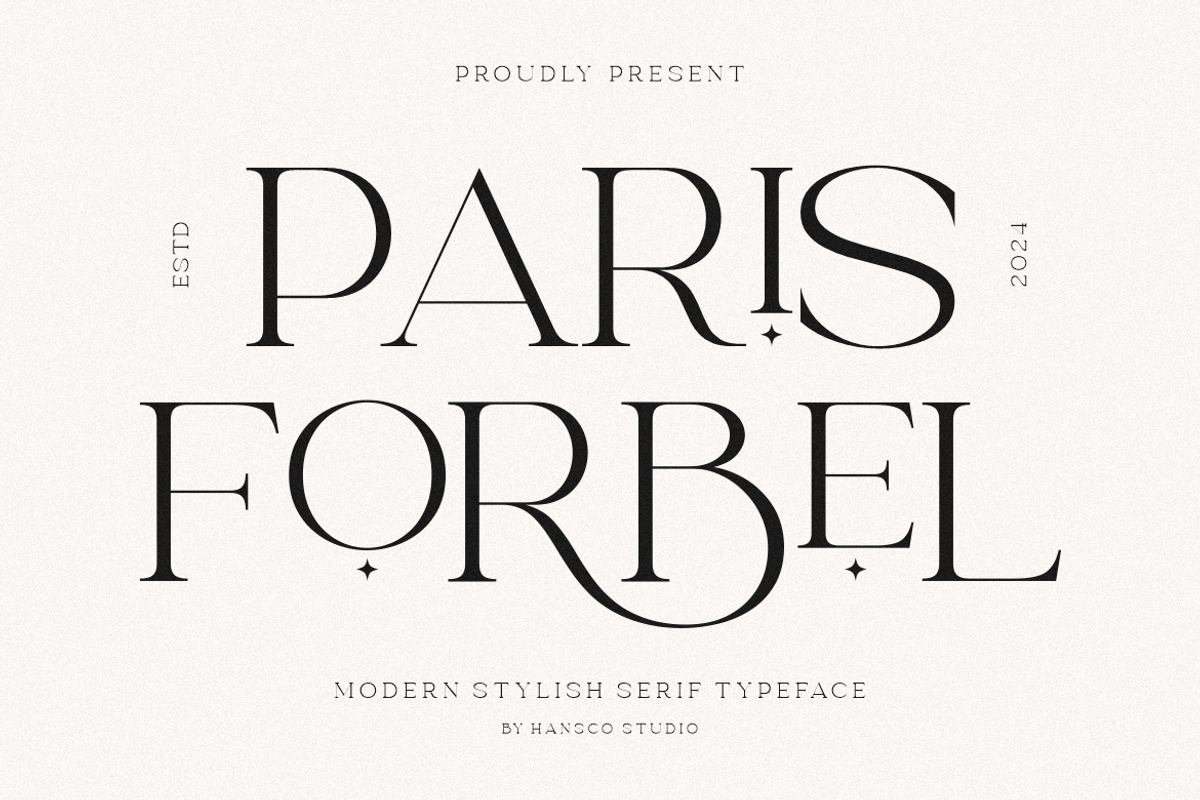
Paris Forbel - Modern Font Free Download
Bold, sleek, and refined—Paris Forbel - Modern Font Free Download is a striking choice for designers looking to make a strong visual statement. With its clean lines and minimalist aesthetic, this font is ideal for high-fashion branding, editorial layouts, product packaging, and digital content that demands elegance and clarity.
Designed with precision, Paris Forbel balances modernity and style, giving your text a professional and upscale appearance. Its versatility makes it suitable for both headlines and body text, offering a polished finish to a wide range of creative projects.